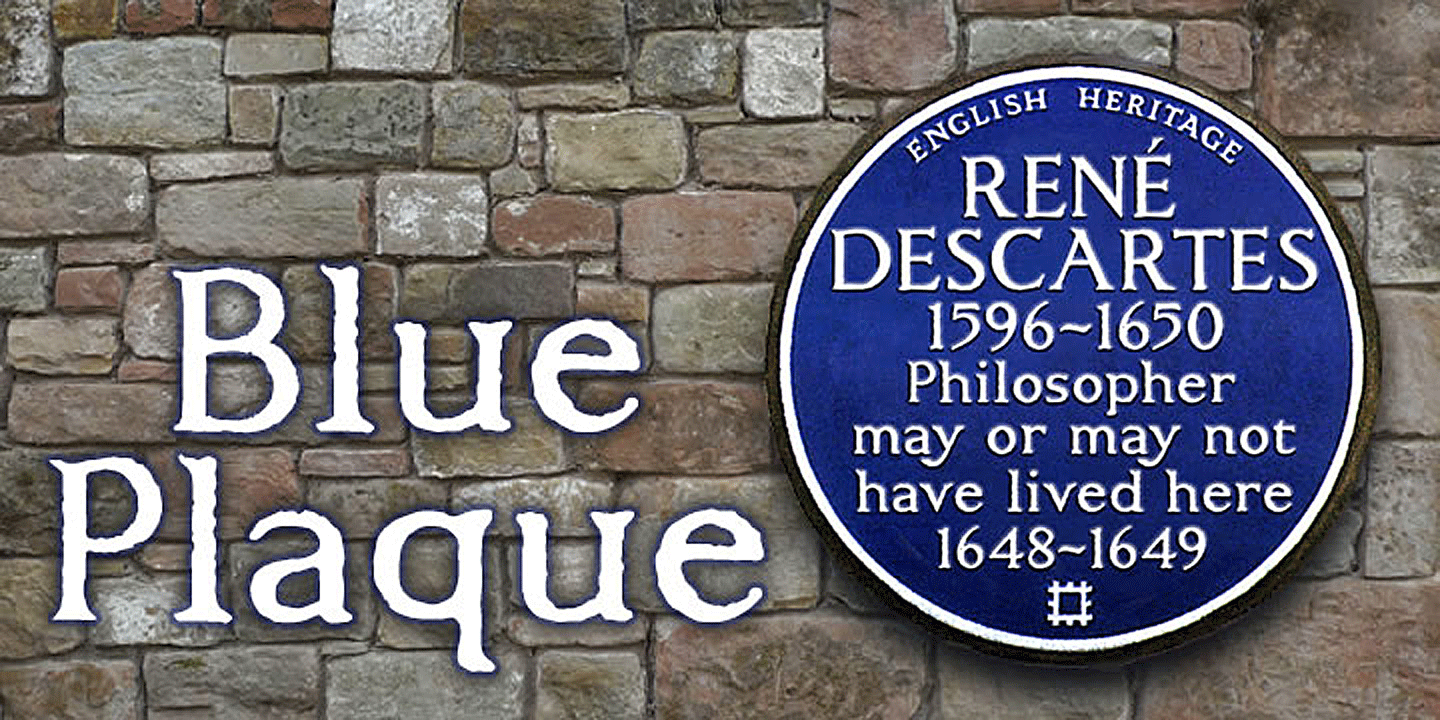
Blue Plaque Font is perfect for historical monument signage, heritage building markers, commemorative plaques, museum exhibition displays, historical society materials, landmark preservation projects, architectural heritage tours, educational heritage content, memorial installations, and any projects that need distinguished typography with historical significance and commemorative dignity.
What makes Blue Plaque Font exciting is its prestigious commemorative design that captures the dignified tradition of historical markers with letterforms that honor the past and preserve important stories for future generations. This distinguished typeface features classical characteristics with institutional weight that evokes the famous blue plaques of London and the worldwide tradition of marking places where history was made by remarkable people and significant events. The font's commemorative character makes it perfect for heritage organizations seeking to communicate historical importance, cultural preservation, and the enduring value of remembering those who shaped our world.
Blue Plaque Font family includes heritage-grade style variations featuring regular, bold, condensed, and engraved versions. The font family also contains historical decorative elements, commemorative symbols, heritage ornaments, and institutional dingbats that enhance the memorial atmosphere. Additional options include weathered variants that simulate decades of dignified aging, along with special character sets designed for different commemorative moods and historical applications.
Honor history with Blue Plaque Font Free Download and commemorate your creative projects with typography that preserves important stories and celebrates the remarkable people who made history in the places we remember. This distinguished typeface delivers memorial-quality performance across all heritage applications, ensuring your message carries the dignity and respect that historical commemoration deserves. Download Blue Plaque Font today and mark your place in design history with typography that honors the past while inspiring future generations, creating lasting connections with audiences who understand that remembering our history is essential for building a better tomorrow.